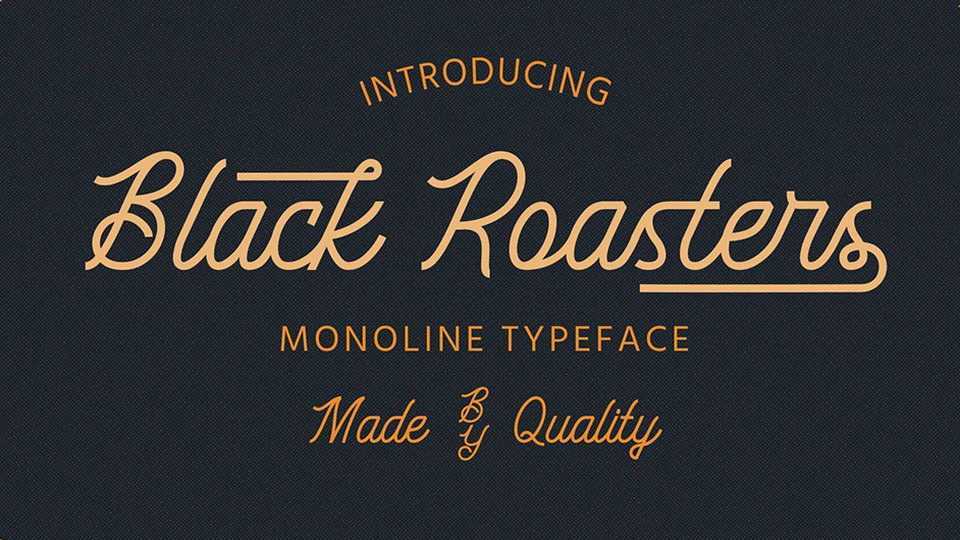
Download Black Roasters font, an elegant vintage monoline script created for vintage or retro design. The font is suitable for logotype, packaging, badges, poster, clothing, and much more.
Designer: Rivo Dwi Adriansyah